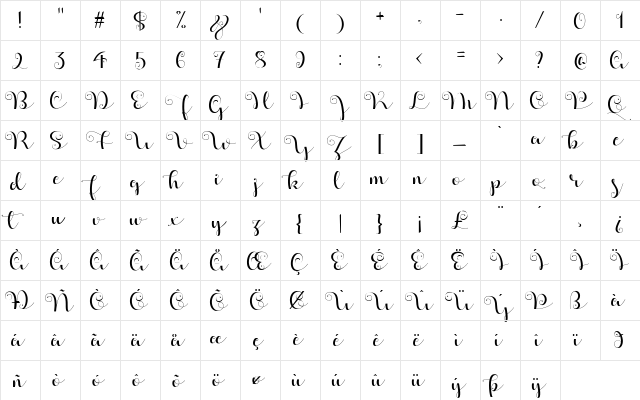
Apples Script Demo Regular
| Foundry | Misti's Fonts |
| Designer | Misti's Fonts |
Design Context for Apples Script Demo Typeface
Apples Script Demo flows with the natural rhythm of handwritten lettering, making it ideal for designs that call for warmth and personal expression.
Font Pairing: Combine Apples Script Demo with a simple geometric sans for maximum contrast — the tension between flowing curves and clean structure is a classic typographic pairing.
Pro Tip: Use Apples Script Demo for short runs of text — names, titles, or taglines. Extended body copy in script faces tires the eye quickly.